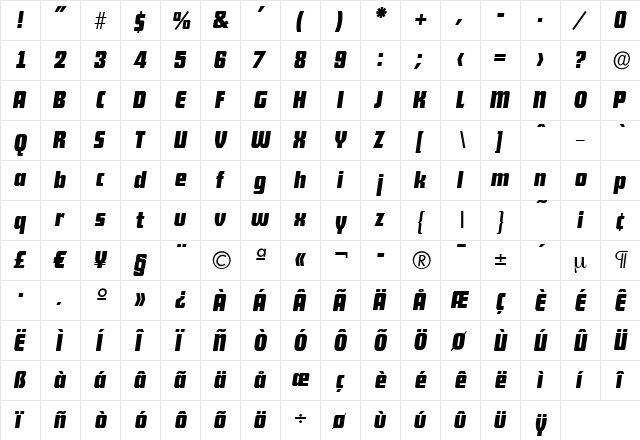
AllisonBecker Bold Italic
Design Context for AllisonBecker Typeface
AllisonBecker takes a measured approach to typography — its balanced proportions and neutral character make it a reliable workhorse for both digital and print work. The dynamic lean of this cut emphasises speed and emphasis in any layout. Its bold stroke weight gives it real presence on the page.
Pro Tip: Use AllisonBecker for emphasis, pull quotes, and subheadings where its slanted energy can add rhythm to the layout.